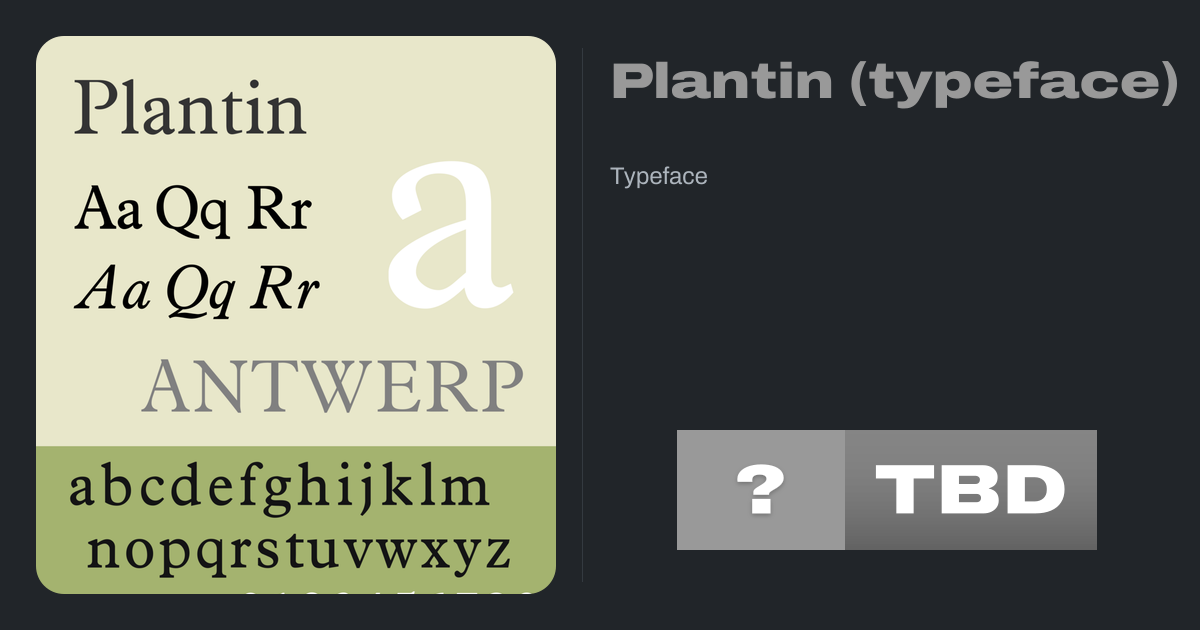
Plantin is an old-style serif typeface. It was created in 1913 by the British Monotype Corporation for their hot metal typesetting system and is named after the sixteenth-century printer Christophe Plantin. It is loosely based on a Gros Cicero roman type cut in the 16th century by Robert Granjon held in the collection of the Plantin–Moretus...